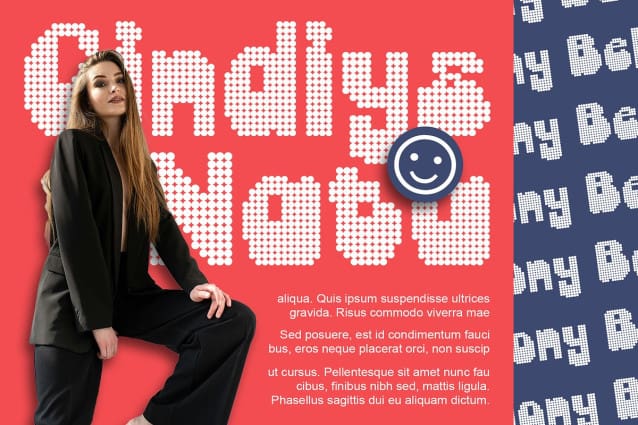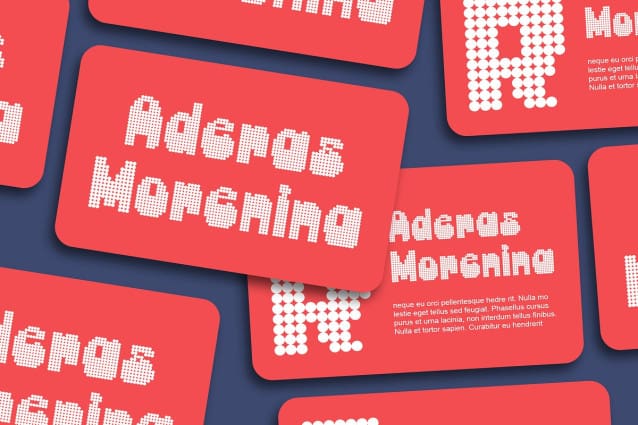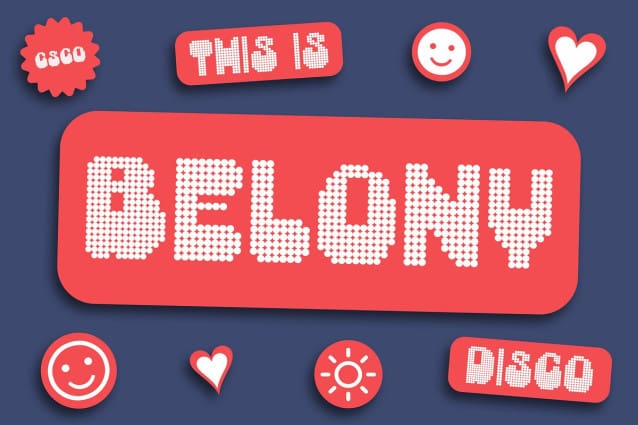
Belony Disco Font
Belony Disco Font: Groovy Bubble Display Font. Inspirational Bubble Design Belony Disco draws inspiration from balloons, featuring bold bubble shapes that evoke a playful and lively vibe. Its rounded forms capture the essence of fun and excitement.
Dynamic Dot Effects Adding to its charm, This font incorporates dynamic dot effects reminiscent of disco lights. These dots dance across the letters, infusing the font with a sense of rhythm and movement.
Perfect for Eye-catching Displays Designed for attention-grabbing displays, This font is the ideal choice for posters, party invitations, and event promotions. Its vibrant and energetic appearance ensures that your message stands out in any setting.
Disco-inspired Nuances With its disco-inspired nuances, This font brings a touch of retro flair to contemporary designs. Whether used for digital graphics or printed materials, this font injects a dose of disco nostalgia into your projects.
Retro Revival This font is more than just a font; it’s a retro revival that infuses your designs with disco fever. With its bubbly shapes and dynamic dot effects, it’s the perfect choice for adding a groovy touch to your displays. Let This font transport you to the vibrant world of disco nights and sparkling lights.